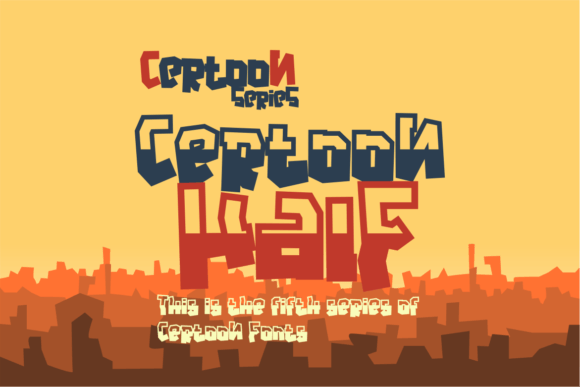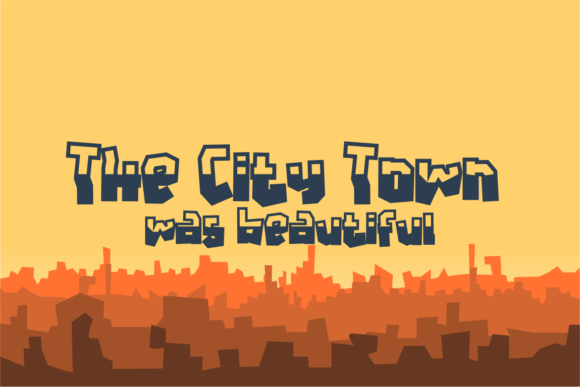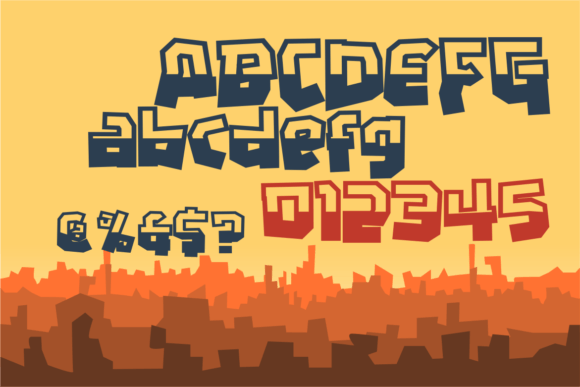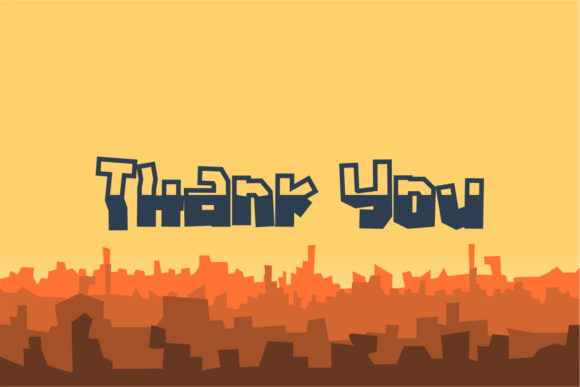
Introducing Certoon Half Font: The Playful Twist to Your Designs
We’re thrilled to announce the latest addition to the CertooN Series collection – the captivating CertooN Half font. This exciting new font is derived from the unique pattern of its predecessor, offering a fresh and unrevealed version that’s sure to delight designers and crafters alike. With its lively and playful nature, CertooN Half is the perfect fit for joyful summer happenings and a wide range of creative applications.
The Birth of Certoon Half
CertooN Half is born from the creative DNA of the CertooN Series, with a distinct twist that sets it apart from its siblings. The font’s design is rooted in the same unique pattern that makes CertooN Series so recognizable, yet it delivers a fresh and exciting take on the classic theme. This new font is not just a variation, but a bold evolution that injects a dose of playfulness and whimsy into the world of typography.
A Font for Joyful Summer Happenings
Summer is here, and with it comes a sense of freedom and joy that’s hard to contain. CertooN Half is the perfect companion for your summer designs, infusing them with a lively and carefree spirit that’s sure to captivate your audience. Whether you’re creating posters, flyers, or social media graphics, this font will add a dash of excitement and energy to your work.
Adaptability at Its Finest
One of the standout features of CertooN Half is its remarkable adaptability. This font is not just limited to digital applications; it’s also perfect for a wide range of craft projects, from bespoke cutting stickers to custom t-shirts. Its playful nature makes it especially loved in children’s events, where it can add a touch of magic and wonder to party invitations, decorations, and activities.
Unleash Your Creativity with Certoon Half
CertooN Half is more than just a font – it’s a creative catalyst that can fuel your imagination and inspire new ideas. Whether you’re a designer, crafter, or DIY enthusiast, this font offers endless possibilities for self-expression and artistic exploration. With CertooN Half, you can:
- Create eye-catching posters and flyers for summer events
- Design custom t-shirts and apparel for kids and adults alike
- Make bespoke cutting stickers and decals for parties and gifts
- Develop unique branding and packaging for your products
Why Choose Certoon Half?
So, what sets CertooN Half apart from other fonts on the market? Here are just a few reasons why designers and crafters are falling in love with this exciting new font:
- Unique and playful design: CertooN Half offers a fresh take on traditional typography, with a lively and whimsical feel that’s hard to find elsewhere.
- Highly adaptable: This font can be used in a wide range of applications, from digital designs to craft projects and DIY activities.
- Kid-friendly: CertooN Half is especially loved in children’s events, making it a great choice for party invitations, decorations, and activities.
- Easy to use: With its clean and simple design, CertooN Half is easy to read and work with, even for beginners.
Get Ready to Have Fun with Certoon Half!